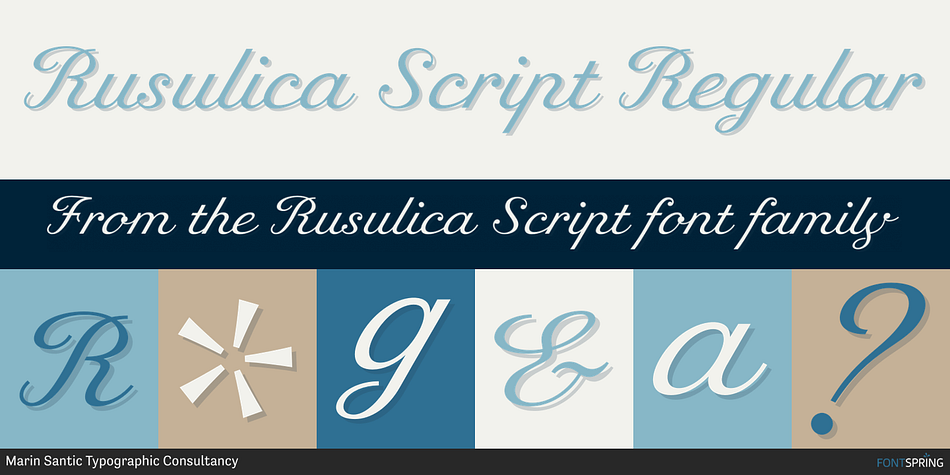
Rusulica Script Regular
Rusulica Script is a script font published by Type Fleet.
RUSULICA
pure luxury
Rusulica script is designed to express handwriting in a modern and glamorous fashion. Its letter construction is pure and fluid. Because of its ornamental and playful design, it offers plenty of possibilities.
Rusulica has a high contrast and there is an alternate for almost every capital letter. The typeface’s x-height is bigger than usual and it is constructed at a 30° angle.